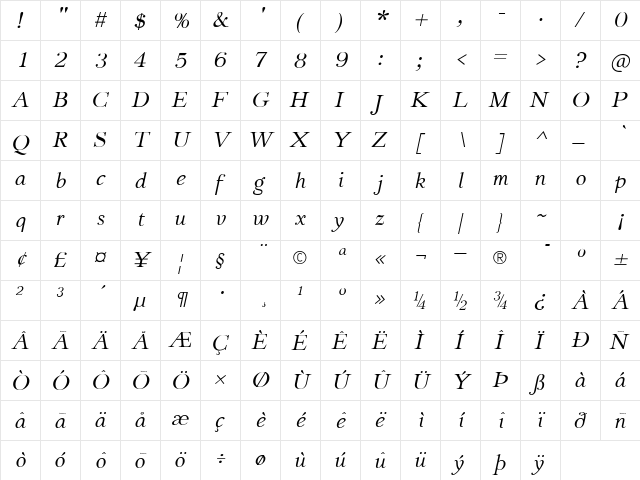
JasperSqueeze Italic
Design Context for JasperSqueeze Typeface
JasperSqueeze is a composed and adaptable typeface that performs quietly and consistently across a wide range of design contexts. Its italic angle brings a sense of urgency and motion to the letterforms.
Pro Tip: Use JasperSqueeze for emphasis, pull quotes, and subheadings where its slanted energy can add rhythm to the layout.